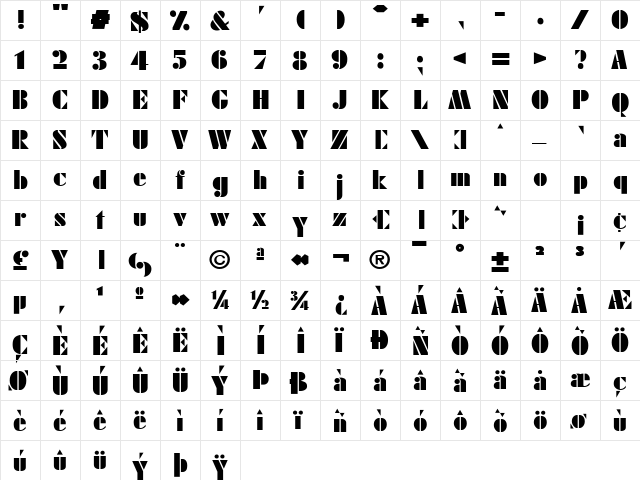
FutureBlack Regular
Design Context for FutureBlack Typeface
FutureBlack channels digital-age aesthetics through its sharp, structured letterforms — ideal for brands that want to signal innovation.
Pro Tip: Use FutureBlack in combination with a neutral sans for body text. Let it define the brand voice in headlines while keeping reading comfortable elsewhere.